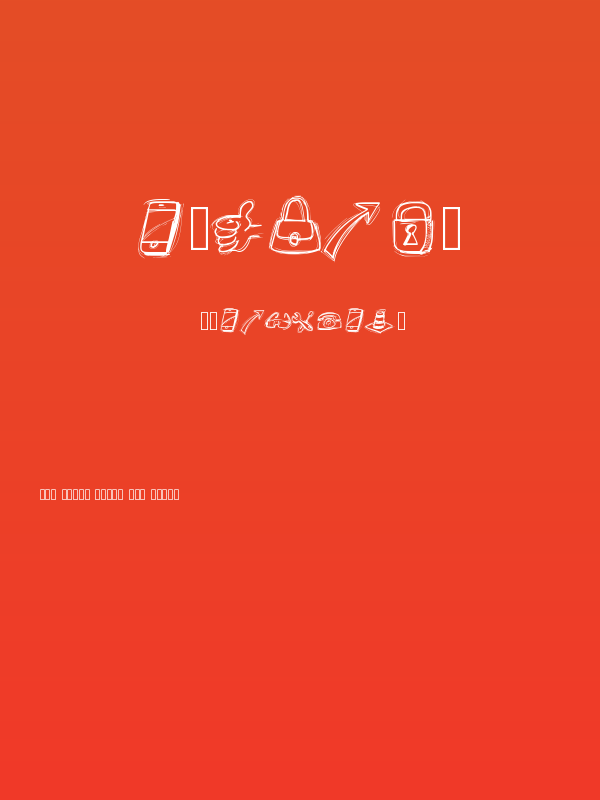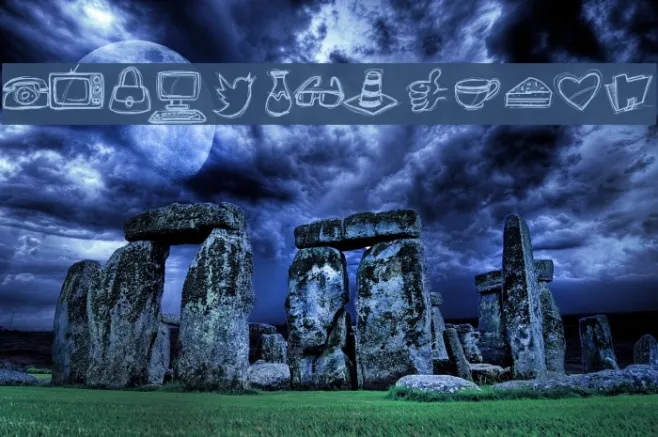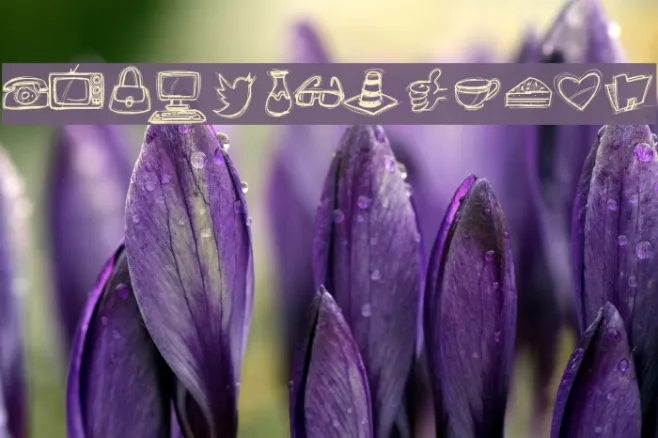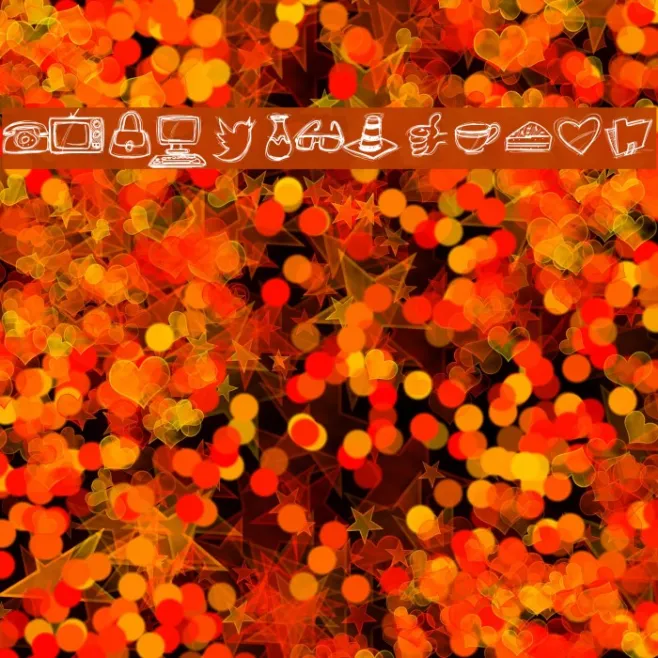
PWIcons Font
PWIcons Description
A hand-drawn, sketch-style icon set featuring various objects such as electronics, food, symbols, and tools. Each glyph is illustrated with loose, energetic lines, giving a casual and playful appearance.
| Overall Style | Decorative, Playful, Hand-drawn |
| Use Case | Icons, UI elements, infographics, creative headings |
| Proposed Projects | Web icons, app interfaces, infographics, educational materials, creative presentations. |